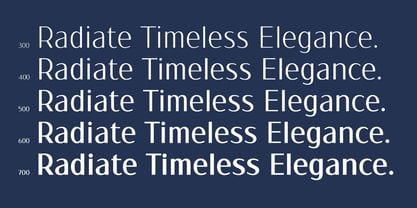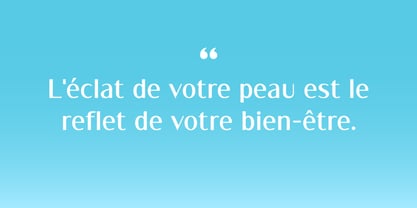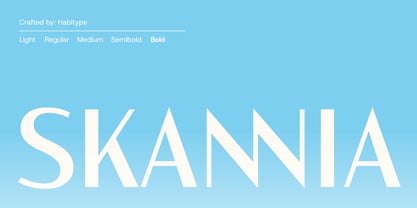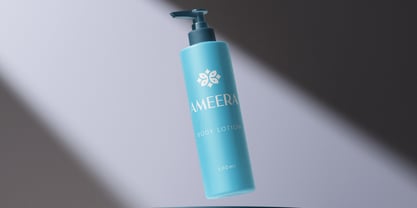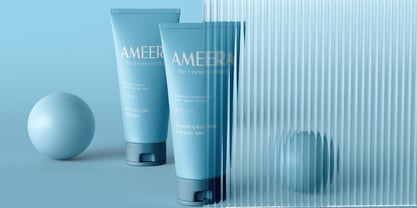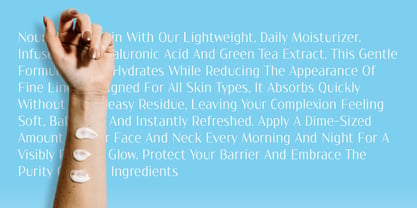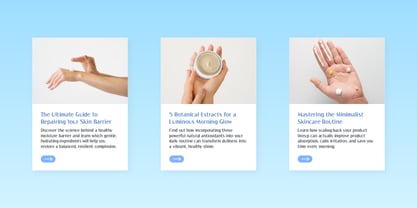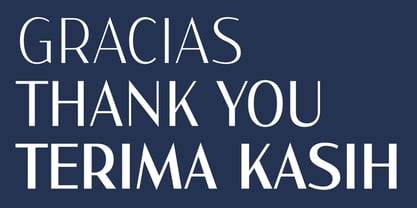
Skannia
by Habitype
The Skannia Font Family was designed by Fahrul Saputra and published by Habitype. Skannia contains 2 styles and family package options. More about this family
Skannia is a sophisticated display sans serif designed specifically for the modern beauty, skincare, and wellness industries. Striking the perfect balance between strength and delicacy, this typeface is crafted to elevate female-focused branding to luxury status.
Available in a family of 5 weights ranging from a delicate Light to a commanding Bold. Skannia provides designers with a complete typographic toolkit.
Use the lighter weights for elegant secondary text and ingredient lists, and let the bold weights shine in striking logos, monograms, and headline typography.